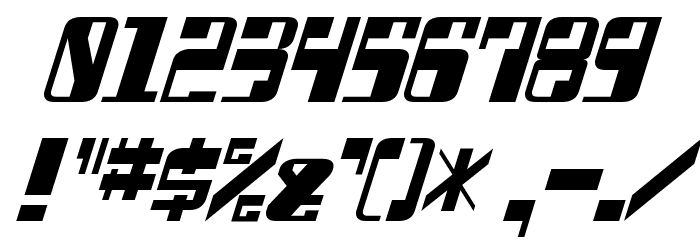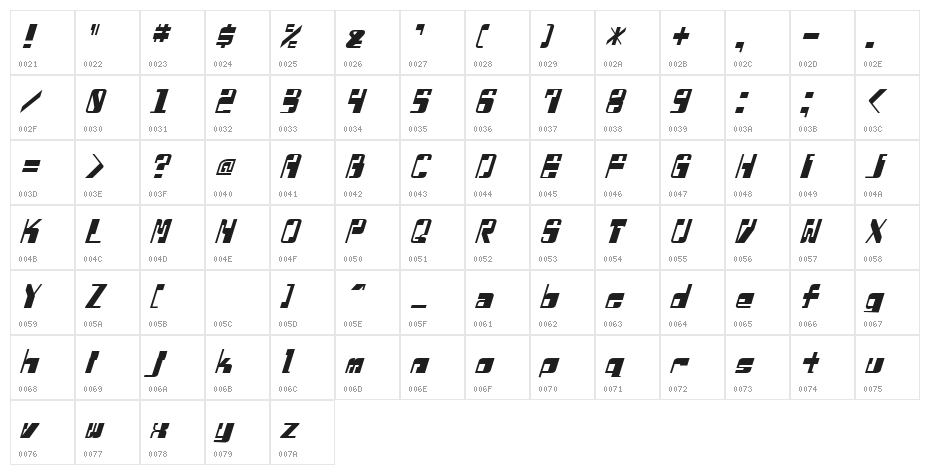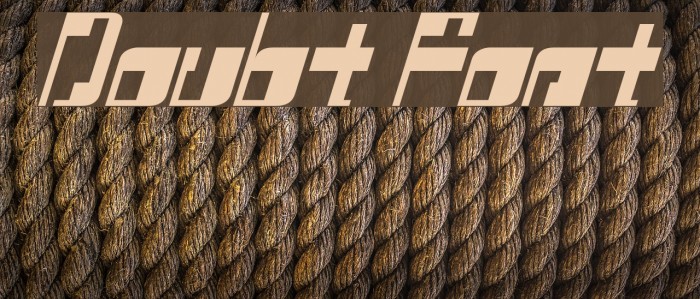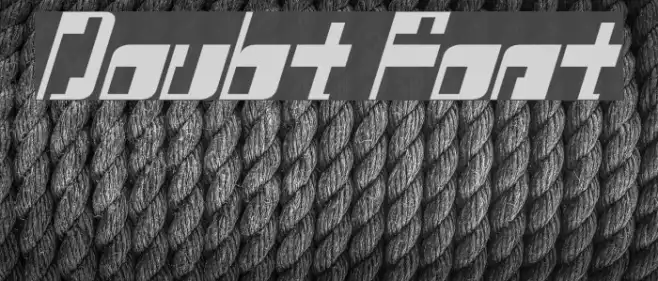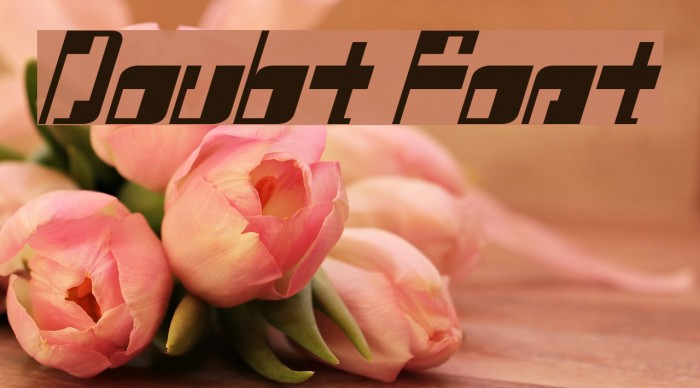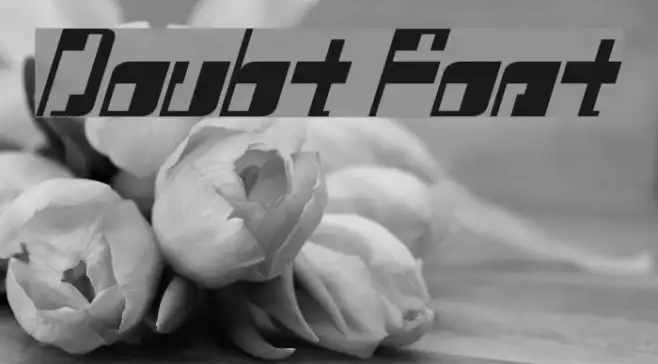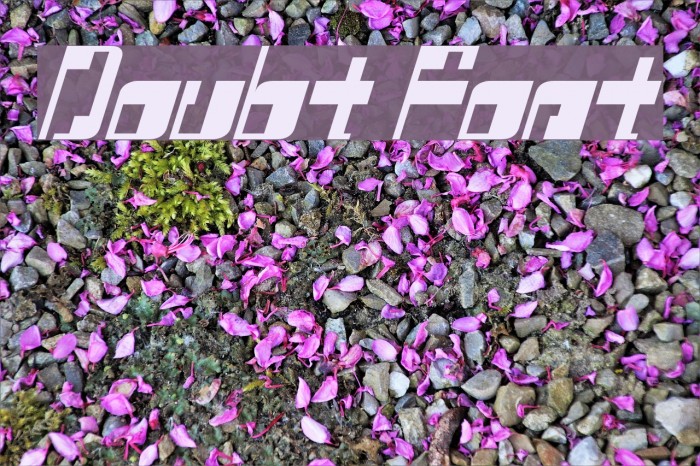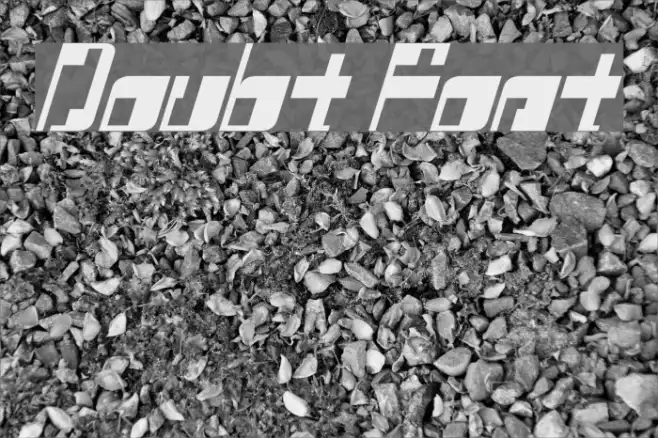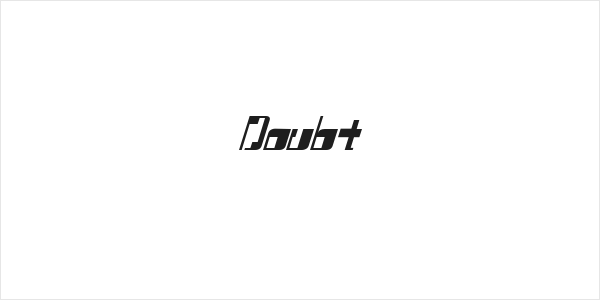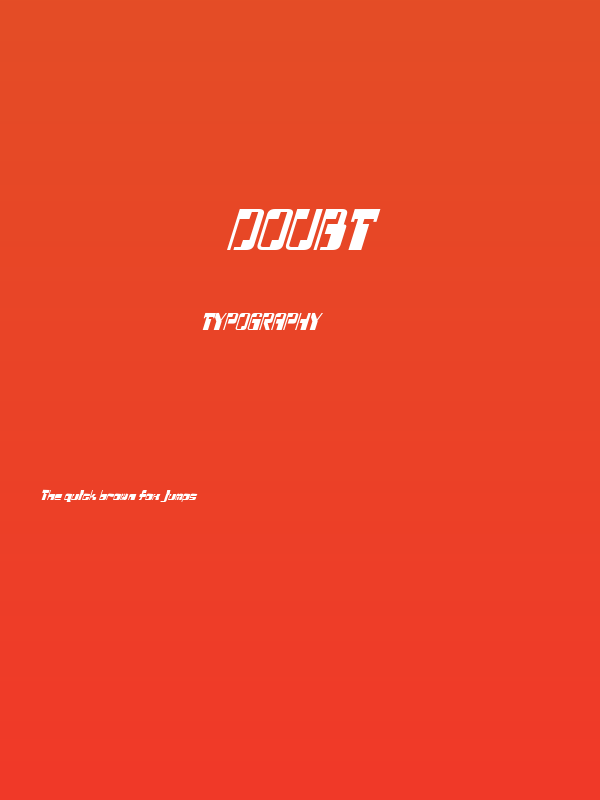
Doubt Font
Doubt Description
This font features a bold, dynamic style with a distinct slant, giving it a sense of motion and energy. The characters are wide and angular, with sharp edges and a futuristic appearance. The uppercase and lowercase letters maintain a consistent style, with the lowercase letters slightly more compact. Numbers and special characters follow the same bold and angular design, ensuring uniformity across all glyphs. The font's unique style makes it stand out, ideal for projects that require a modern and edgy look.
| Proposed Projects | Ideal for sports branding, automotive designs, video game titles, and tech-related projects. |